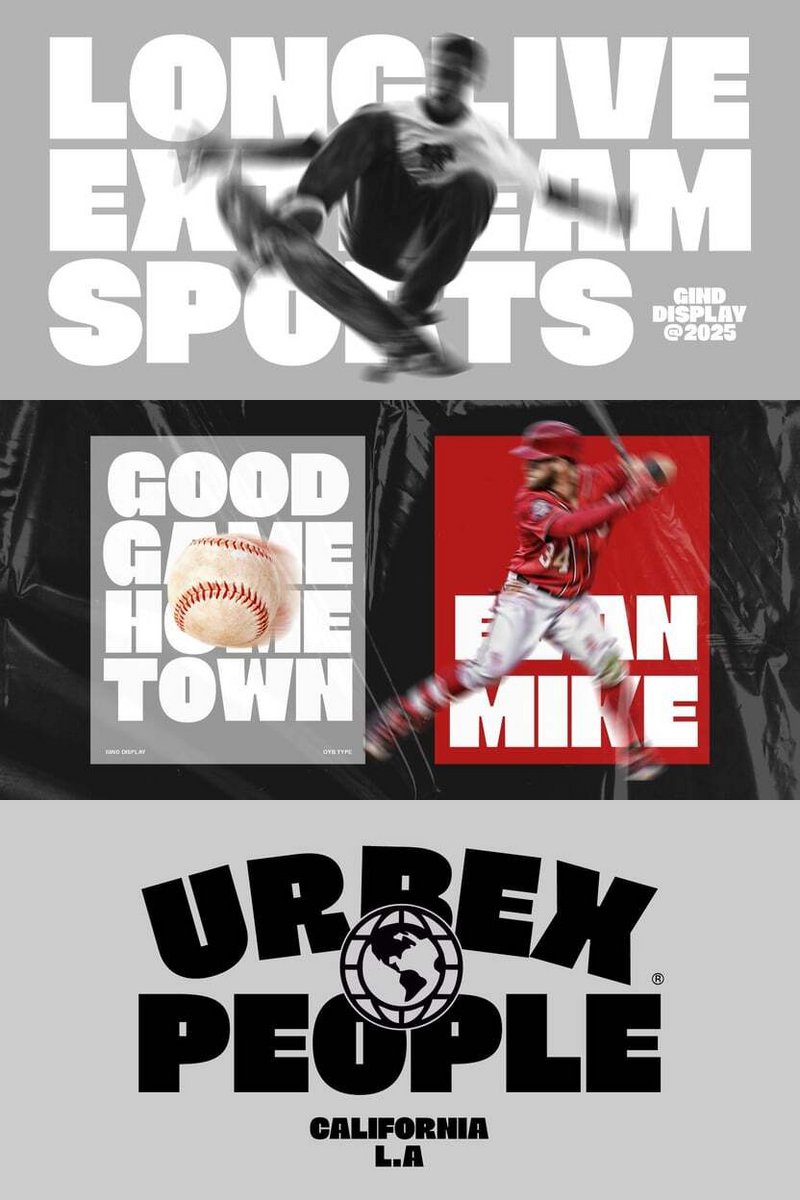
Gind: Defining Modern Simplicity for Agency Editorial
As a creative agency, you're constantly seeking that essential tool, the one that simplifies without sacrificing soul, that speaks volumes without a shout. You’re looking for a font that grounds your designs, allowing your message to breathe and resonate. Meet Gind.
Gind isn't just a typeface; it’s an exercise in thoughtful reduction. With its clean, architectural lines and balanced proportions, Gind embodies modern minimalism, offering a quiet confidence that feels both current and timeless. It has an inherent grace that makes space for your content, ensuring that what you say is always heard with clarity and impact. This isn't about being stark; it's about intentional design that builds trust and leaves a lasting impression.
Imagine a brand identity that feels effortlessly sophisticated, built on principles of authentic precision. Picture editorial spreads where every word is a clear note in a harmonious symphony, where whitespace is celebrated as much as the text itself. Gind was crafted for this very purpose – to strip away the noise and deliver pure, unadulterated clarity. For agencies navigating the complexities of modern brand building, Gind is your steadfast partner. It empowers you to craft visual narratives that resonate deeply, providing a visual anchor in a bustling world. The Gind font ensures your client's story is told with integrity and an understated power that captivates.
From the pristine pages of a luxury magazine feature or an art gallery catalogue, to the refined touch of a corporate annual report; from a striking website headline to a subtle UI element, Gind adapts with unparalleled versatility. It truly shines in editorial layouts where elegance meets legibility, in compelling brand guidelines, and in packaging that whispers quality.
Gind: Clarity, Defined.